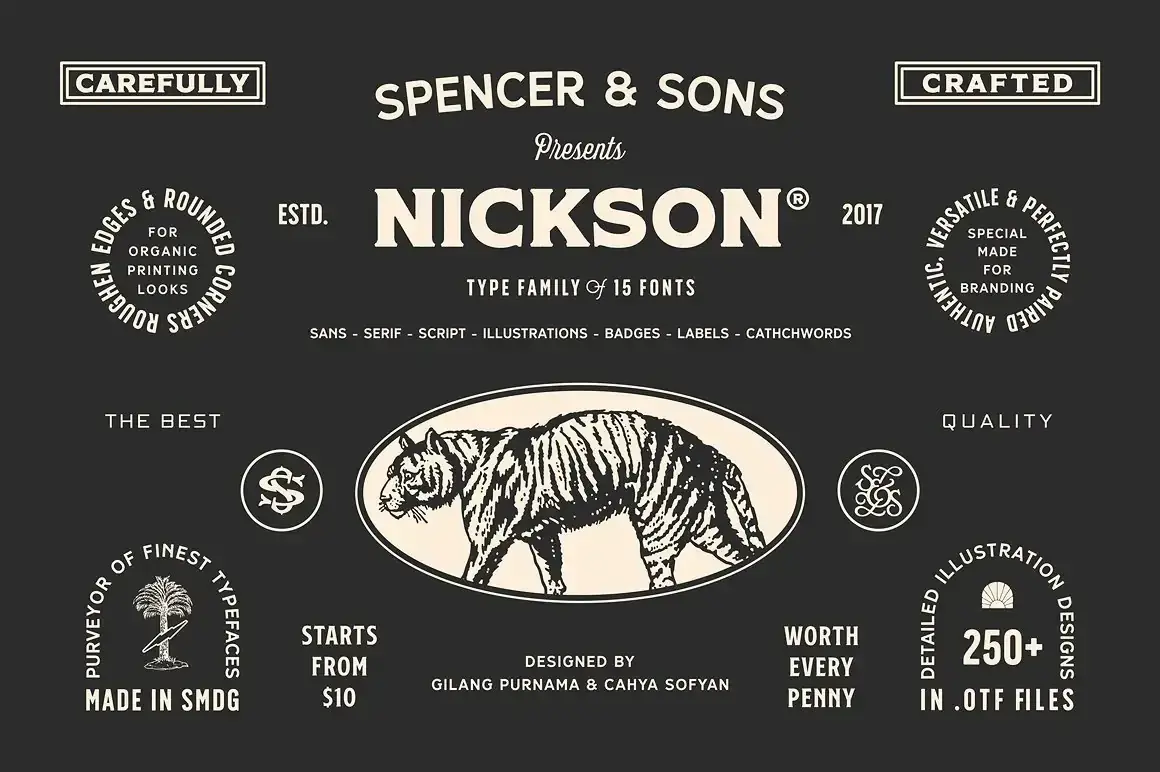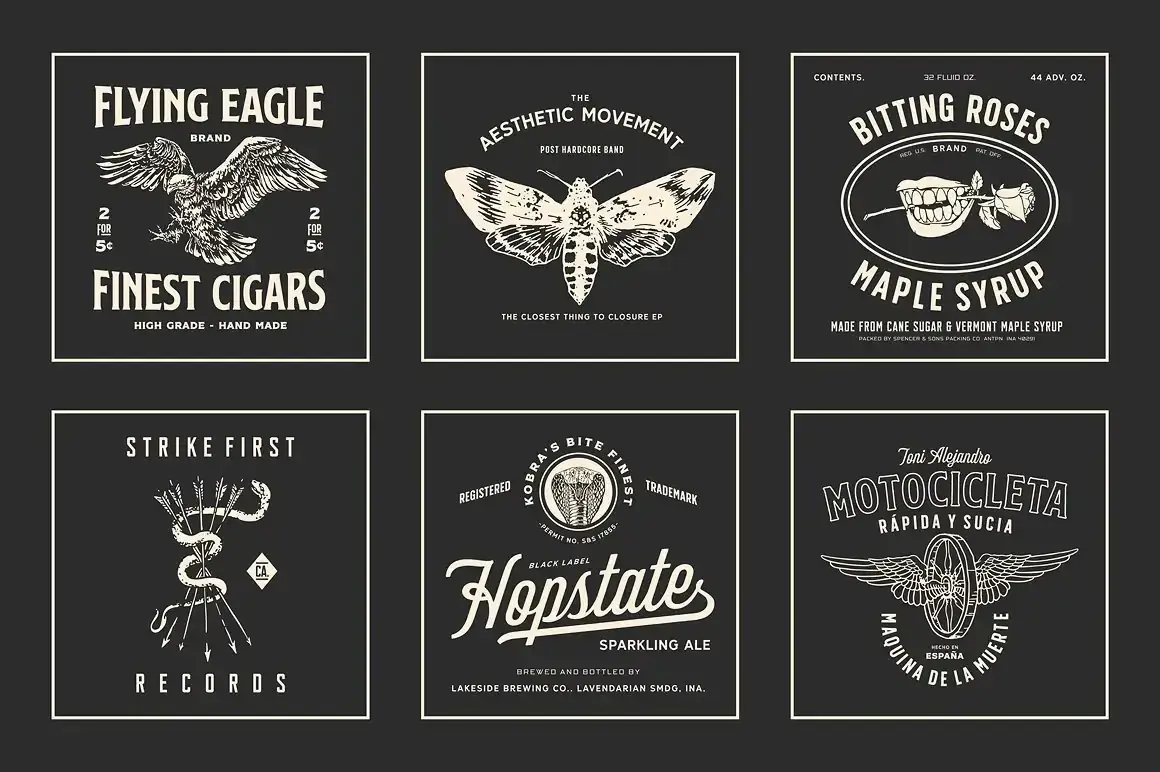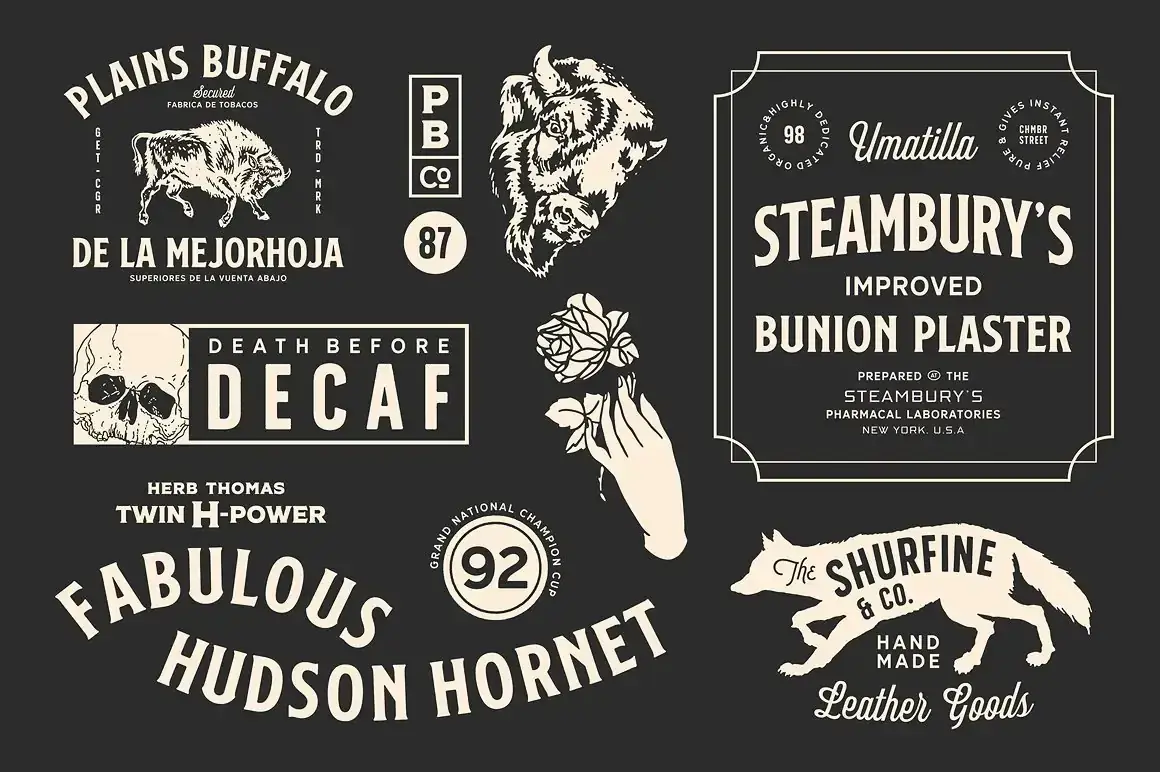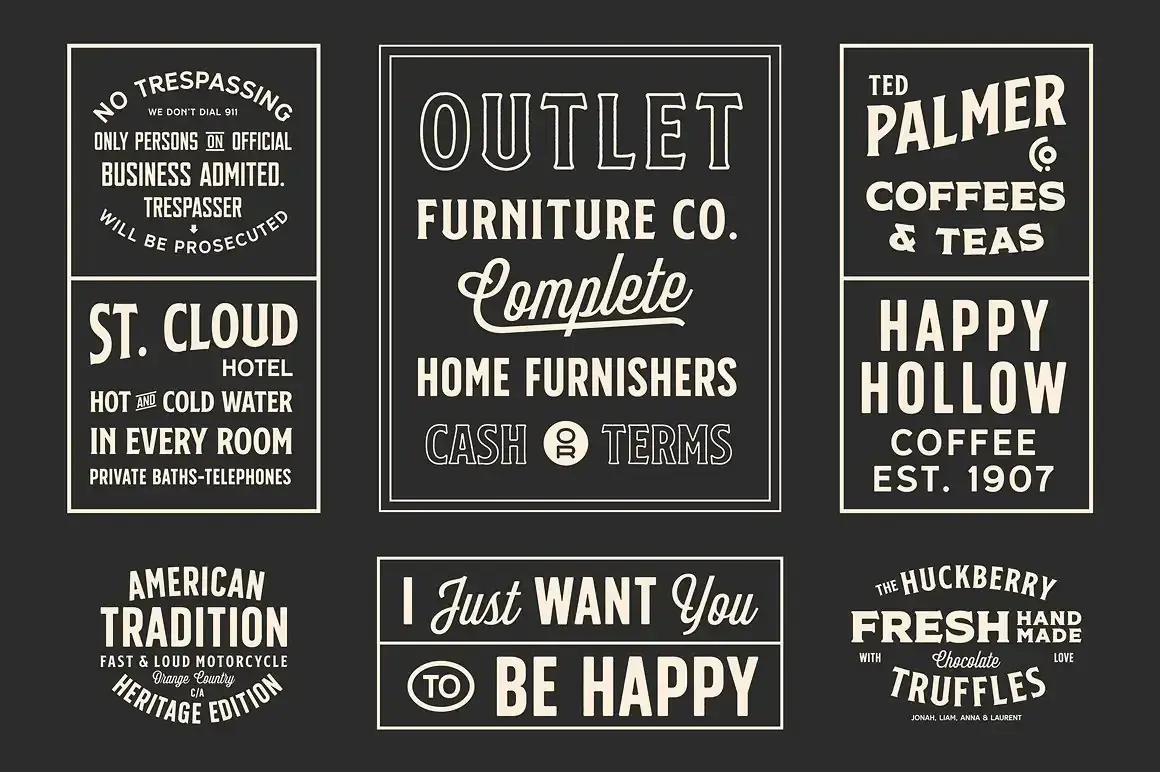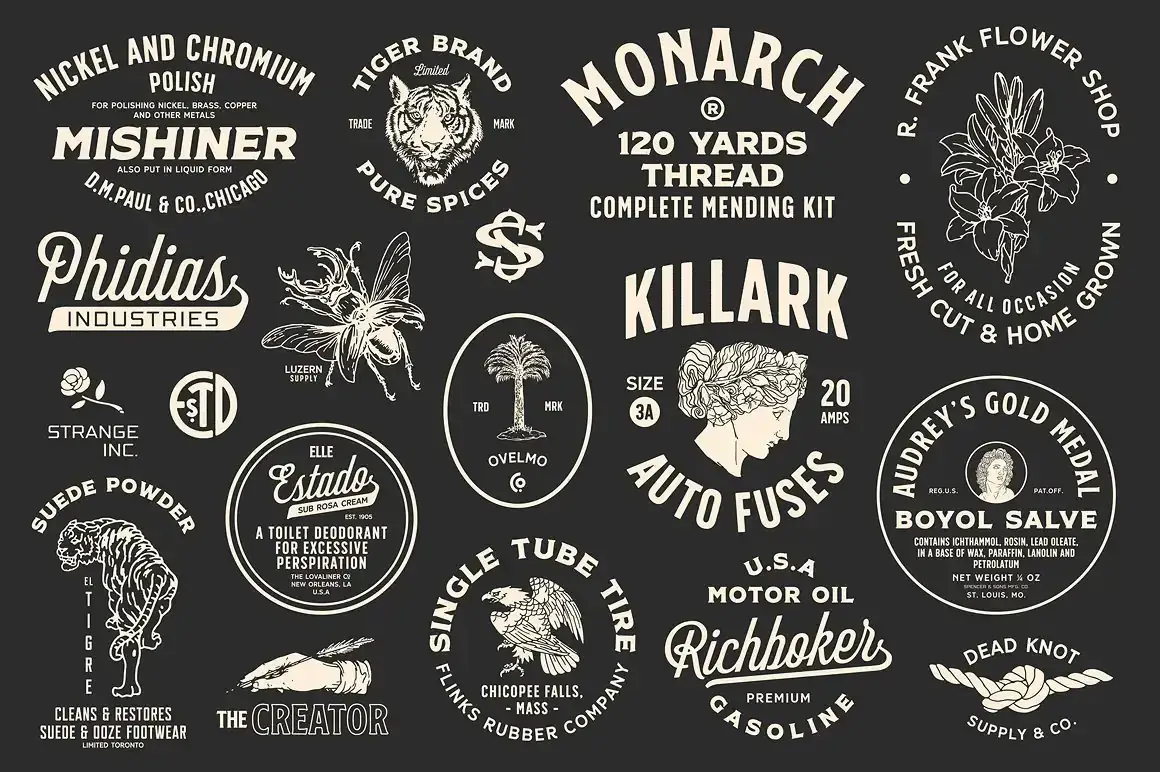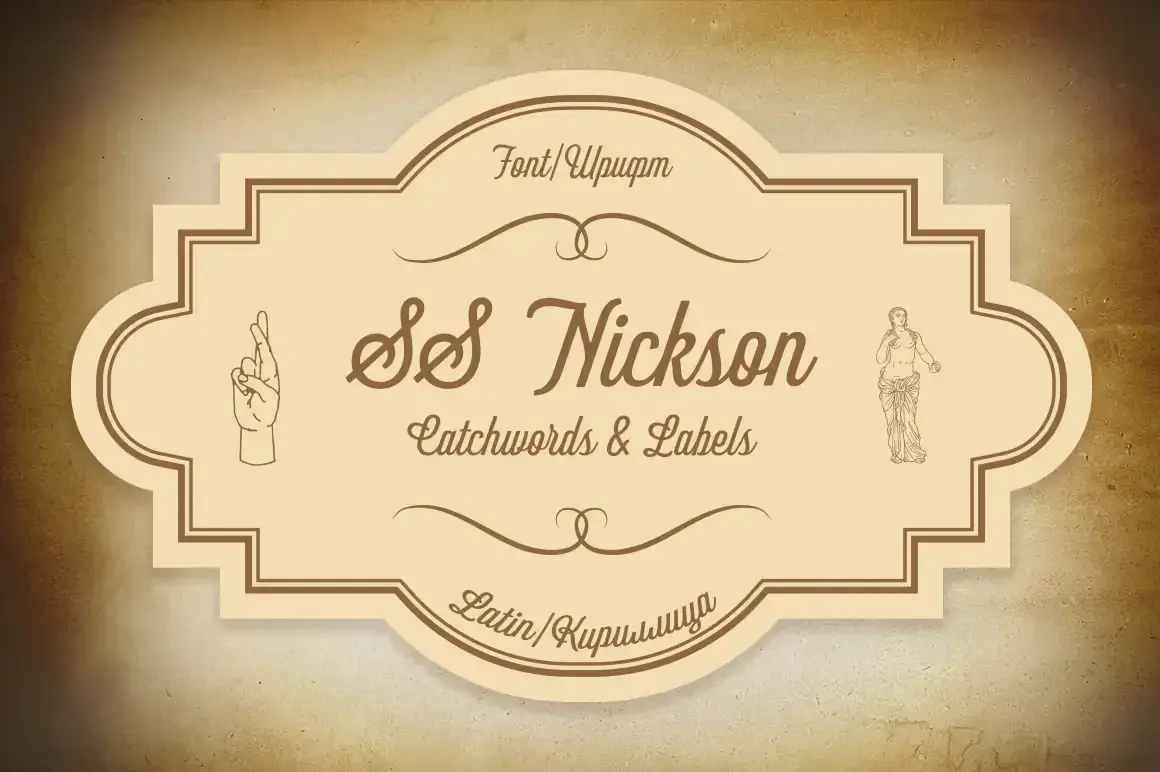
S&S Nickson Font Bundle – Elevate Your Typography
Transform your designs with the S&S Nickson Font Bundle, a versatile collection featuring 15 unique fonts. Each font within this bundle showcases distinct styles while harmoniously pairing together, making it an ideal choice for any creative project.
The Nickson Font Family includes seven display fonts and one elegant script font, complemented by over 250 meticulously crafted illustrations. These illustrations utilize innovative techniques to ensure every detail is preserved, enhancing your designs without compromise.
- ✅ 15 Unique Fonts → Perfectly paired for cohesive designs.
- ✅ 250+ Illustrations → Enhance your projects with detailed graphics.
- ✅ Badges & Labels Included → Ideal for branding and promotional materials.
- ✅ Supports 75+ Languages → Reach a global audience effortlessly.
The S&S Nickson Font Bundle is not just a collection of fonts; it’s a comprehensive toolbox for designers. Whether you’re creating captivating posters, stylish t-shirts, or engaging magazine prints, this bundle provides the flexibility and creativity you need. Trusted by professionals, it’s designed to elevate your typographic works and deliver stunning results.
| Font Styles | 15 Fonts (7 Display, 1 Script) |
| Illustrations | 250+ |
| Language Support | 75+ Latin-based Languages |